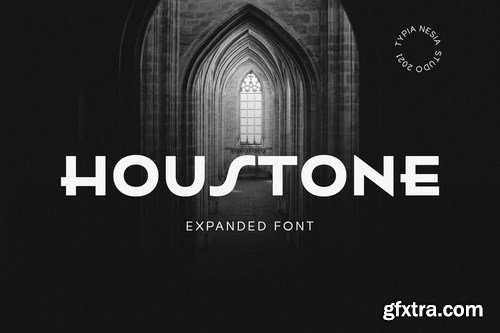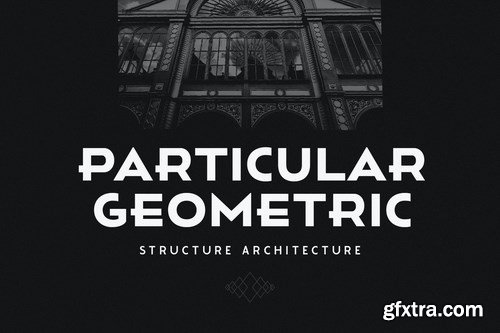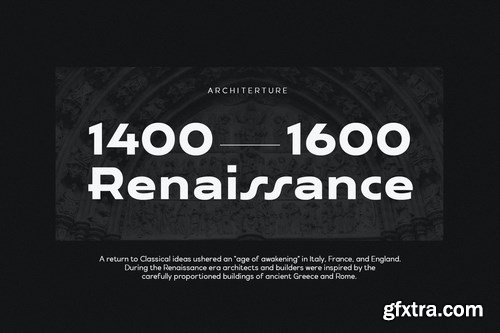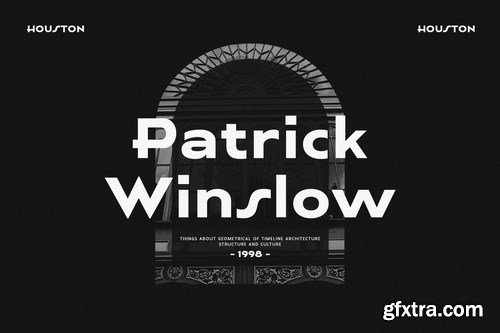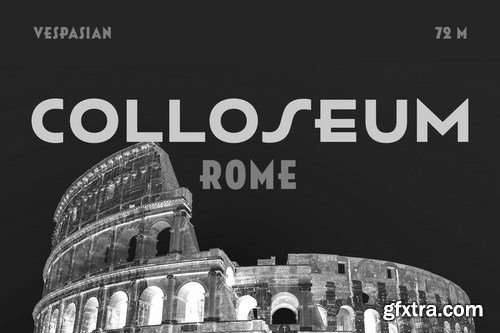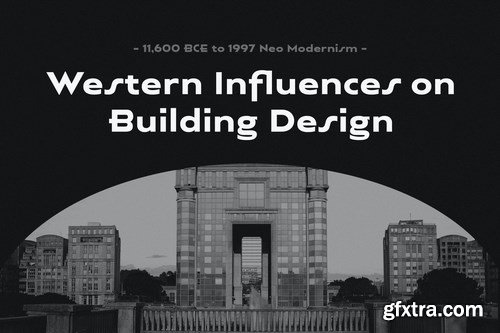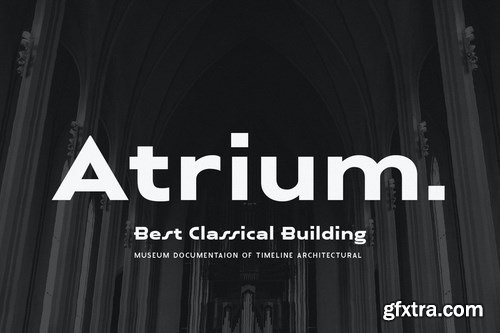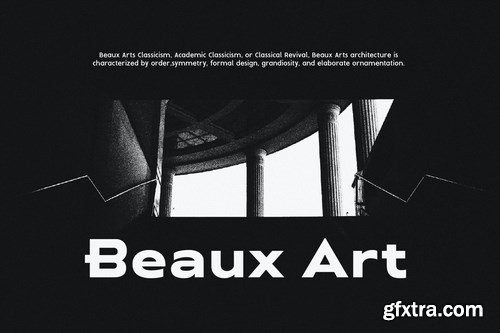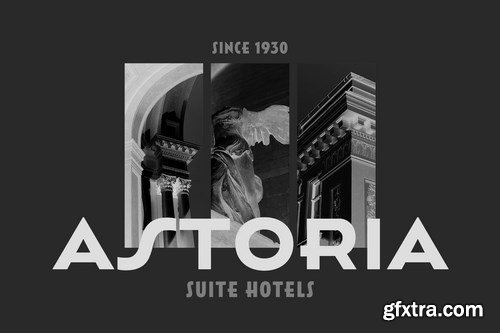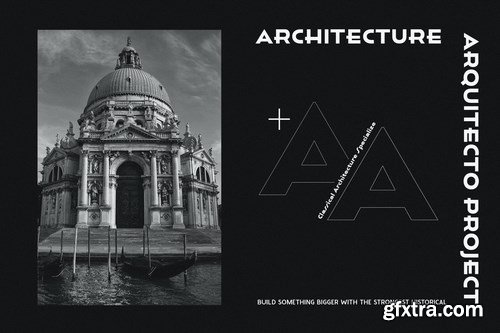
Houstone - expanded / extended Art Deco Sans Serif - Retro Vintage Architectural Historical Display Font
Houstone Art Deco Sans Serif Display Font is perfect for your up coming projects. Such as logo branding, editorial design, sport design, game / gaming industry, music poster, Historical design, architectural and furniture design, website design, modern advertising design, poster quote, book/cover title, special events and any more.